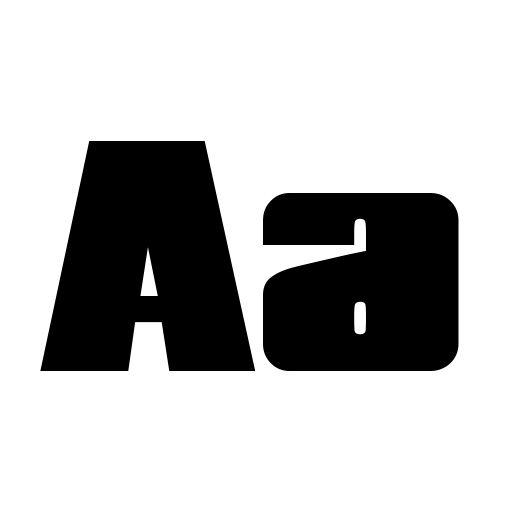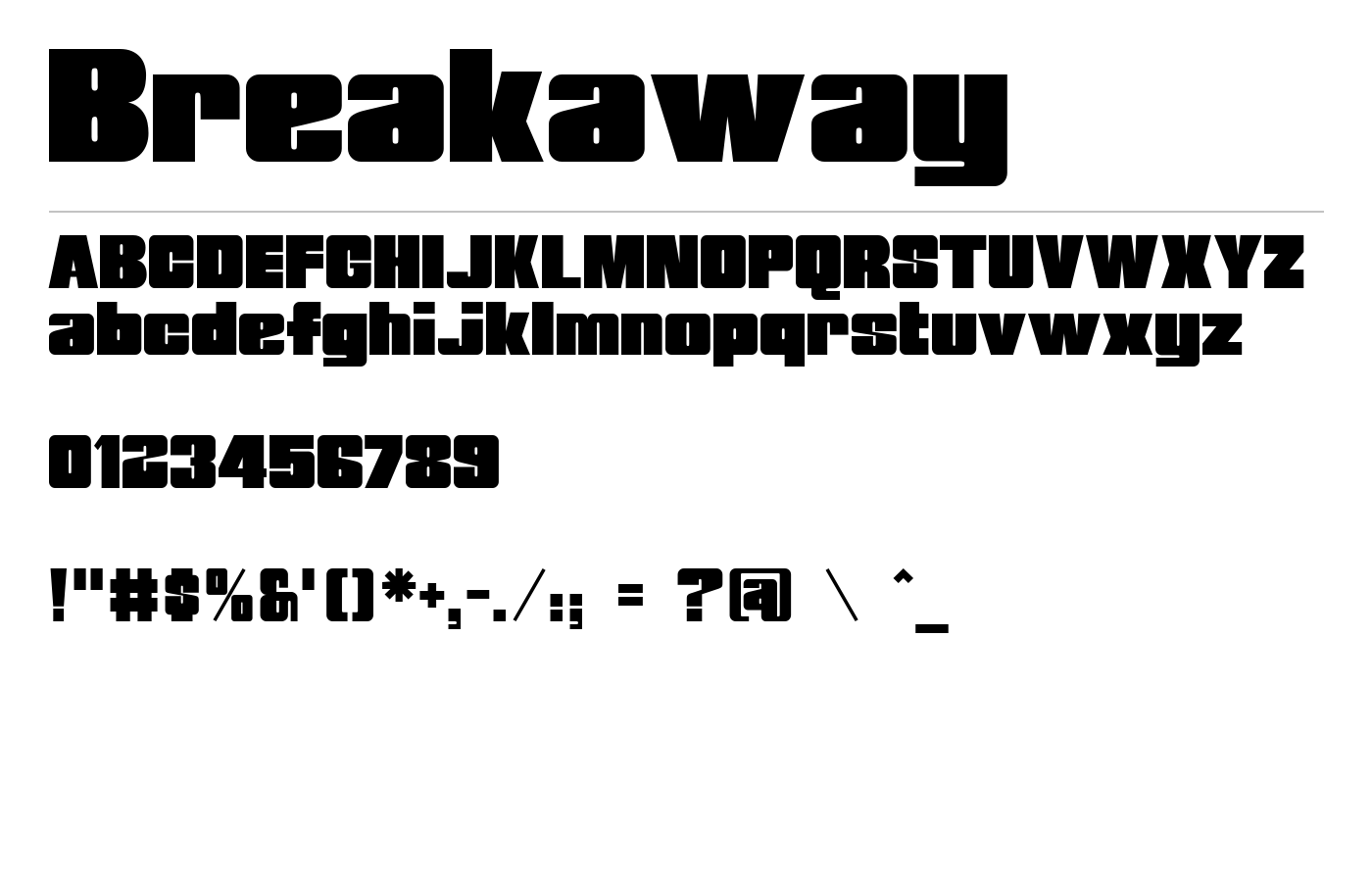
Breakaway is a bold, wide sans serif font with a strong, blocky structure and a high-impact presence. Its heavy weight, large x-height, and uniform stroke width give it a powerful, confident feel perfect for eye-catching headlines, logos, and branding that demands attention. This font works especially well for projects seeking a modern, industrial vibe with a straightforward and masculine edge.
Breakaway Font